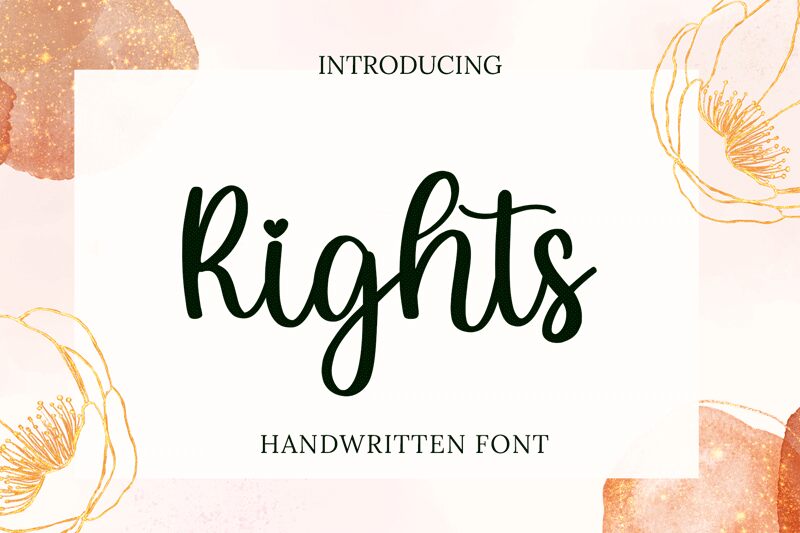
Rights, the semi-light handwritten font by Bearytype, exudes elegance with its delicate strokes and graceful curves. This versatile typeface adds a touch of sophistication to any project, making it ideal for wedding invitations, luxury branding, and editorial designs. Its fluidity and unique charm breathe life into logos, creating an unforgettable visual identity. Whether you're crafting a romantic greeting card or designing an upscale magazine layout, Rights brings a balance of subtlety and refinement that captivates your audience. Elevate your creative endeavors with this font that effortlessly merges style with readability.